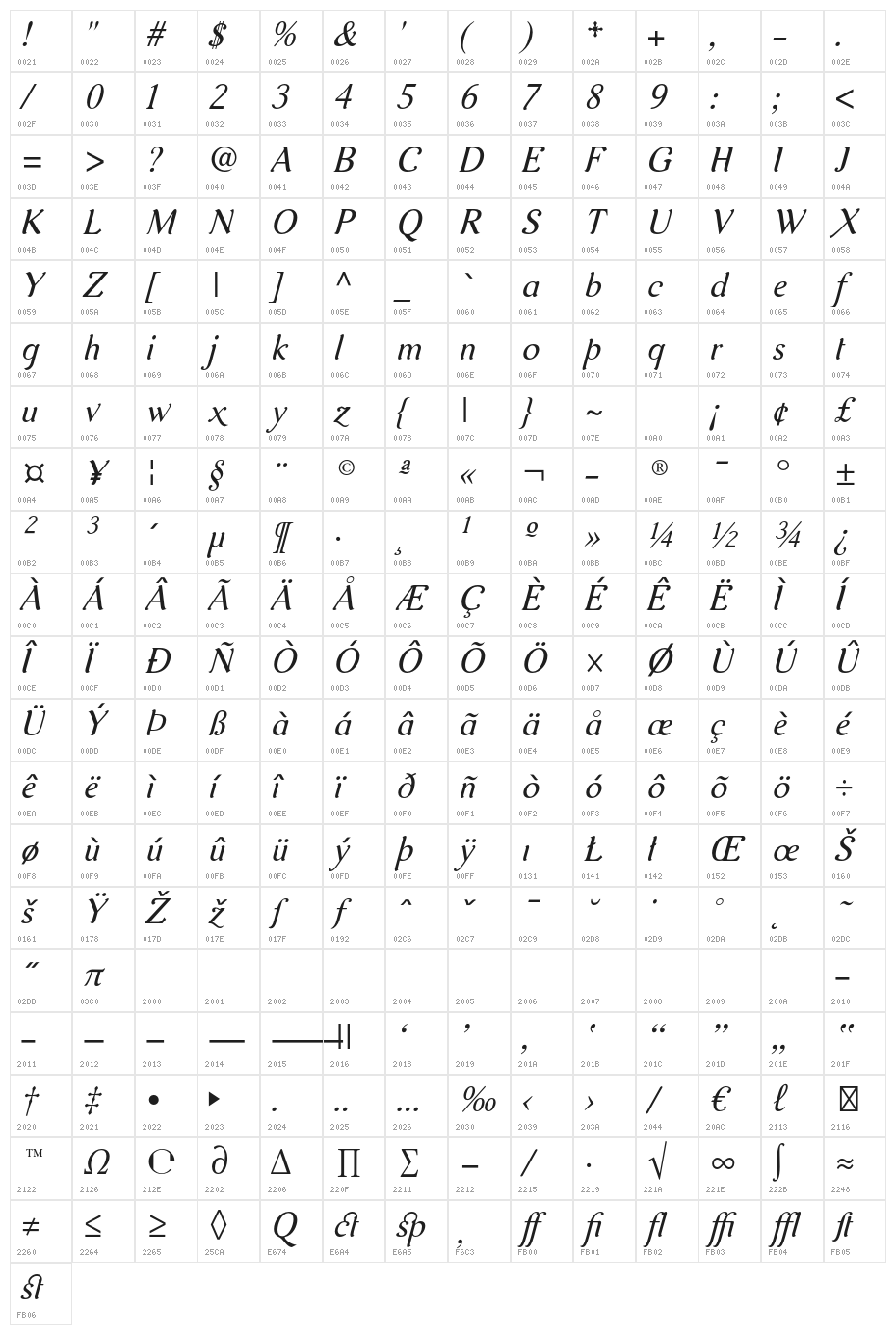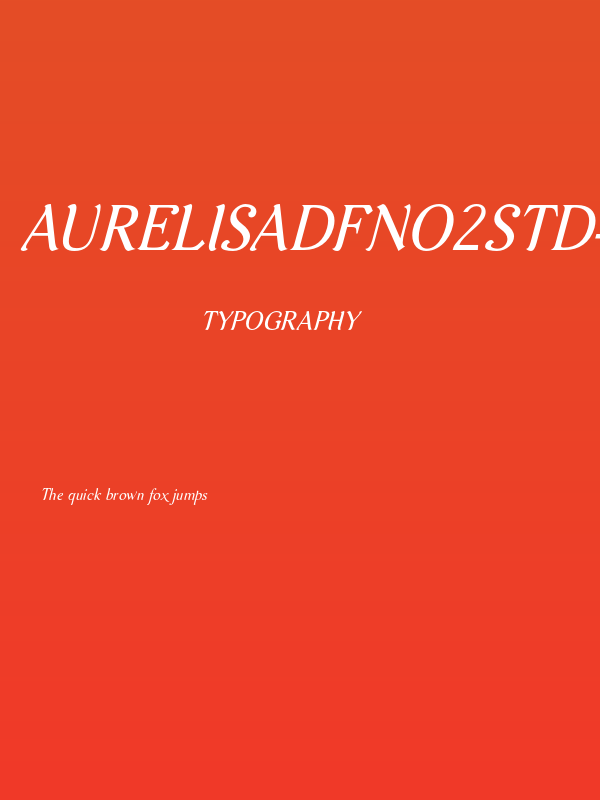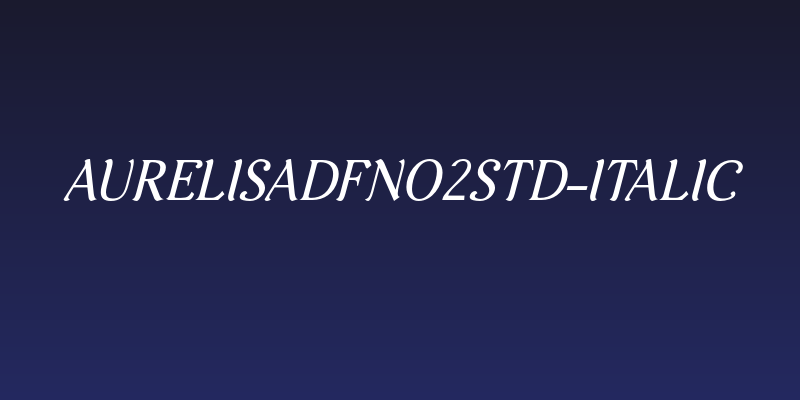
AurelisADFNo2Std-Italic Font
AurelisADFNo2Std-Italic Description
This elegant serif font features a classic italic style with smooth, flowing curves and a refined appearance. The uppercase letters exhibit a sophisticated slant, while the lowercase characters maintain a consistent and graceful form. The numerals are well-proportioned, complementing the overall aesthetic. Special characters are designed with the same attention to detail, ensuring a cohesive look across all text elements. The font's design is both timeless and versatile, making it suitable for a variety of applications where a touch of elegance is desired.
| Proposed Projects | Ideal for wedding invitations, formal event programs, elegant branding, and editorial design. |